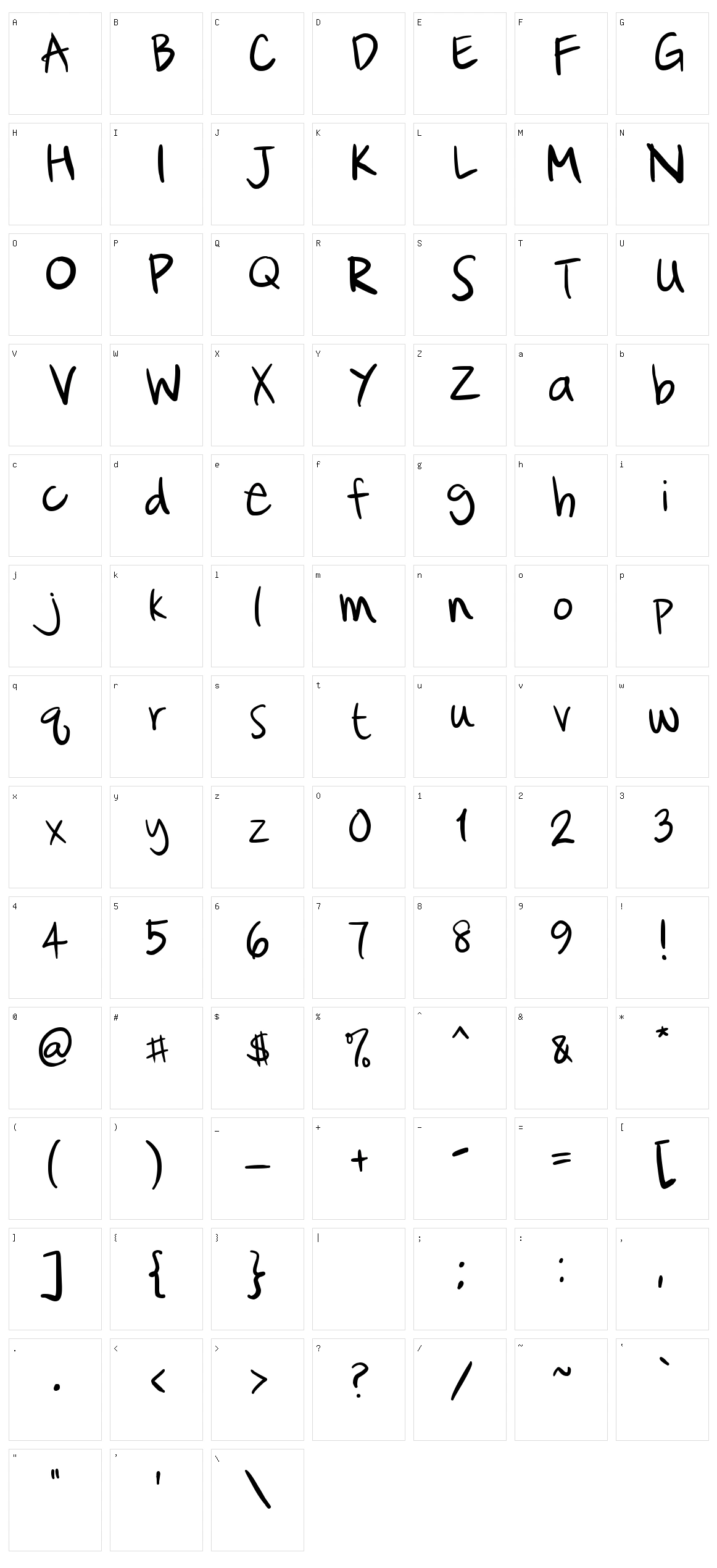
The free font Cataclysmic is carefully designed by Denise Chan, showcasing a thoughtful balance of creativity and usability and falls under the Script font style. When you download the ZIP file, it contains only 16.46 KB of font files, making it lightweight and quick to download. Please review the license details below to understand permitted usage and distribution rights. If license information is not available, we recommend using this font for personal projects only or contacting the author directly for commercial usage permissions.